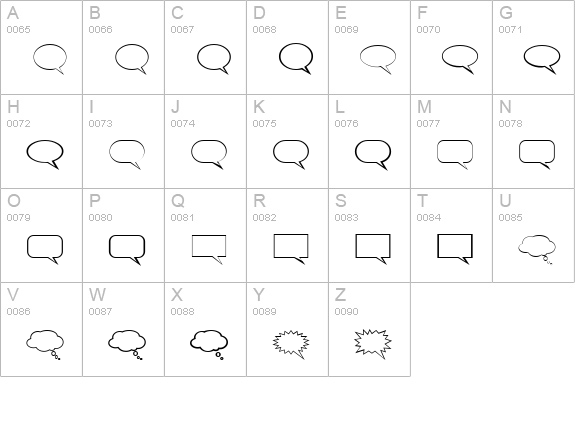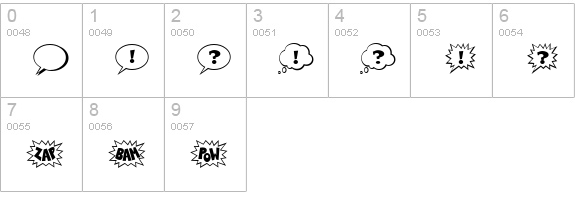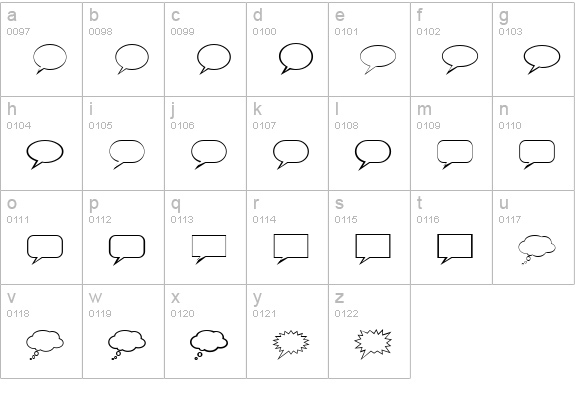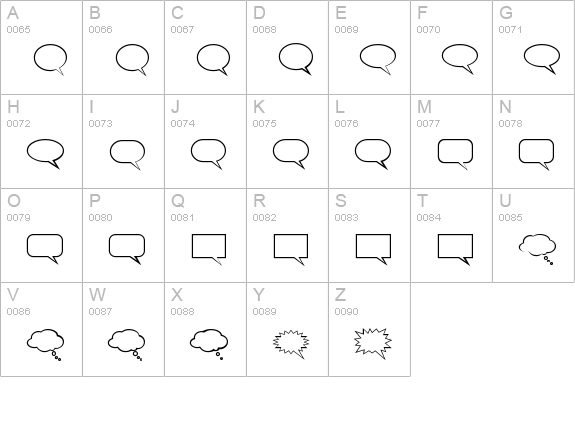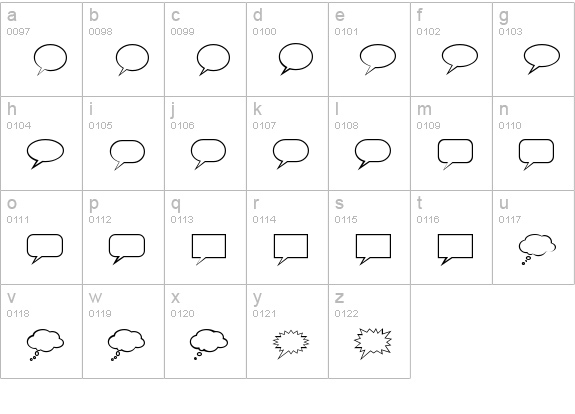
Introducing TalkBalloon, a captivating and creative font that will add a touch of whimsy and playfulness to any design project. This unique font is perfect for conveying a lighthearted and friendly message, making it ideal for children's books, comics, advertisements, and more. With its charming and distinctive letterforms, TalkBalloon is sure to capture attention and delight readers of all ages. Each character is carefully crafted to resemble a speech bubble, giving the font a fun and energetic appearance. Whether you're designing a poster, creating a logo, or crafting a greeting card, TalkBalloon will bring your words to life with its lively and animated style. What's even better is that TalkBalloon is available for free! That's right, you can download this incredible font at FontsMarket.com without spending a penny. We believe that great design should be accessible to everyone, and that's why we've made TalkBalloon freely available for you to use in your personal and commercial projects. Not only does TalkBalloon offer exceptional visual appeal, but it also provides versatility and ease of use. The font is compatible with various design software and can be easily incorporated into your existing workflow. Whether you're a seasoned designer or just starting out, TalkBalloon will make your creations pop with its vibrant and dynamic personality. So why wait? Give your designs a playful twist and download TalkBalloon today at FontsMarket.com. Let your words soar and captivate your audience with this charming and free font. Don't miss out on this opportunity to add a touch of fun and creativity to your projects. Get TalkBalloon now and let your imagination run wild!